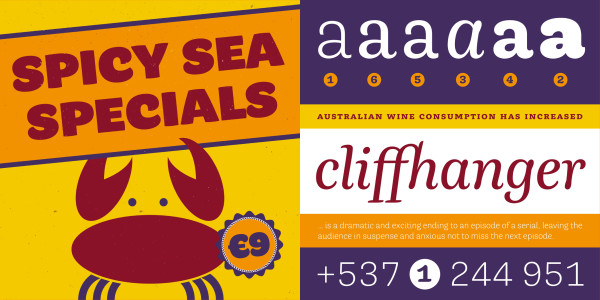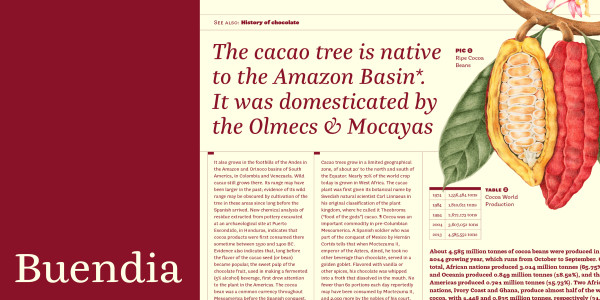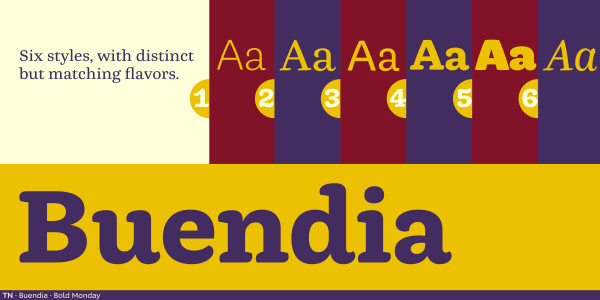
Buendia Font Family
Buendia Font, behaves like a real family: instead of having one set of letterforms simply gain or lose weight, each family member is a different person. Starting from a single skeleton, it offers design variants from distinct type classifications. A Light and Medium Neo-grotesque segue into a calligraphic serif in Regular and Italic styles, before transitioning into a brush-like Bold slab serif and finally a chubby ExtraBold sans serif. Rounded letterforms, curly tails, leaf-shaped serifs and finials, and gently bulging stroke endings give the casual typeface an inviting, friendly demeanor.